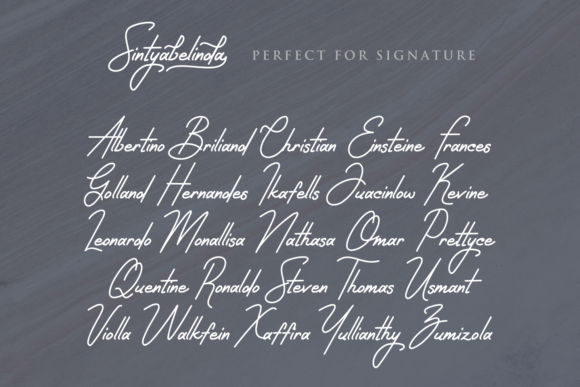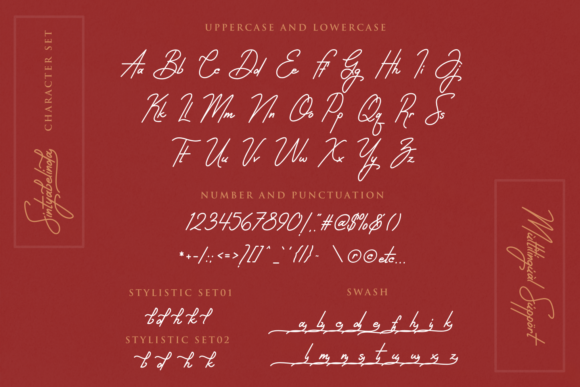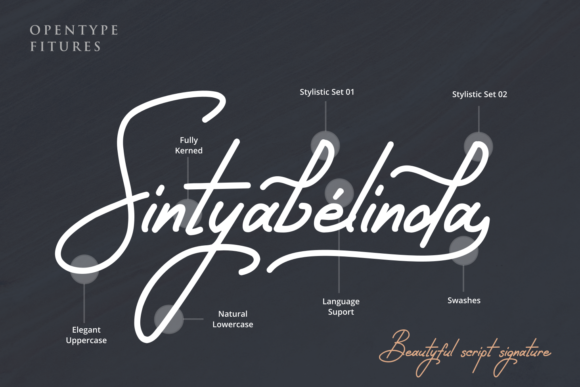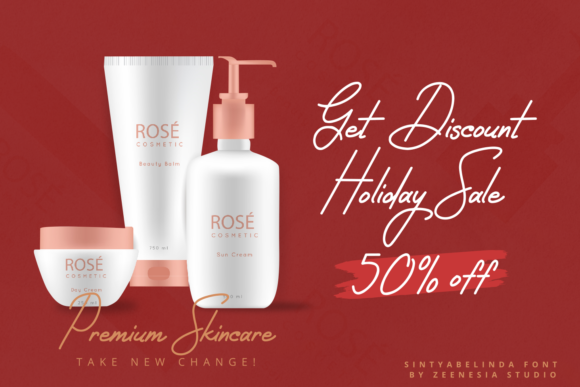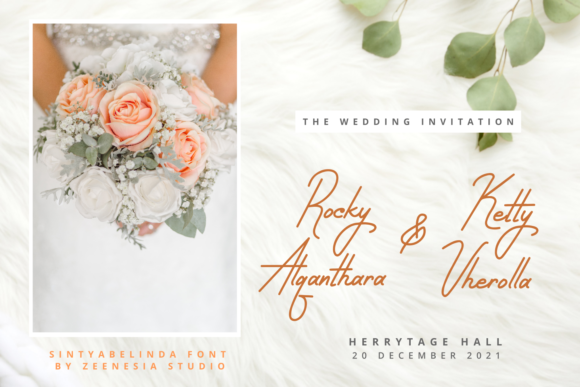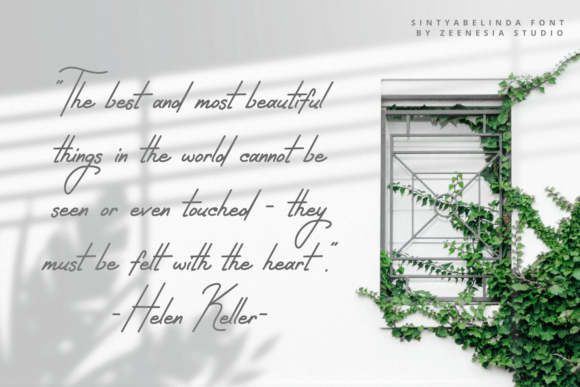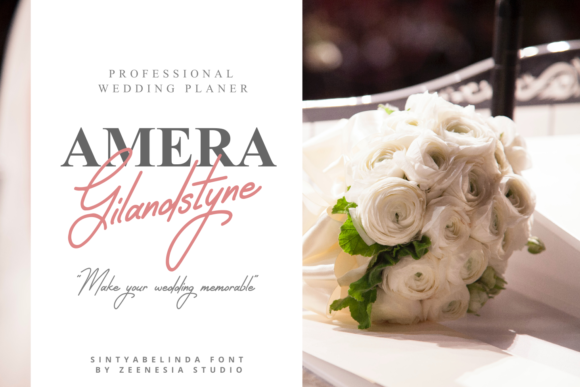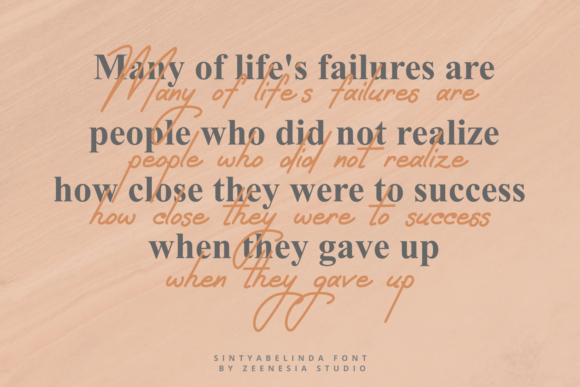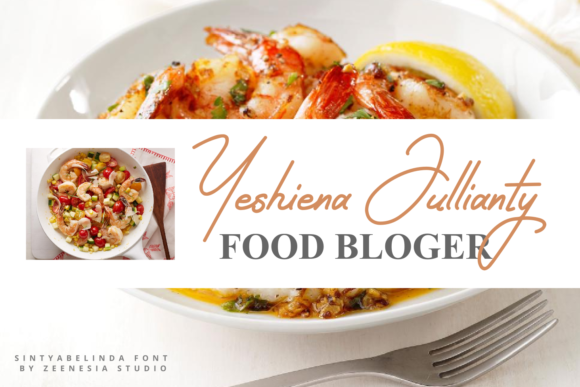
Sintyabelinda Font
About Sintyabelinda Font
Sintyabelinda is a modern and elegant handwritten font. Use it to make your ideas even more realistic and create spectacular designs!